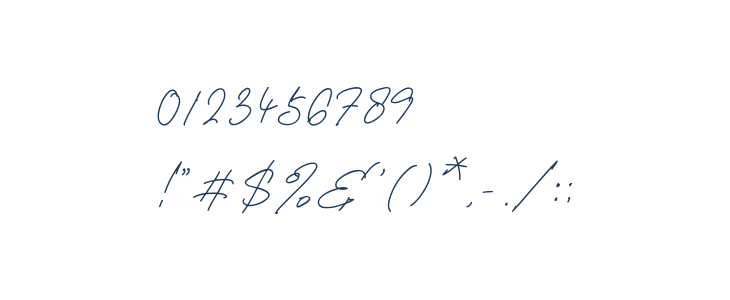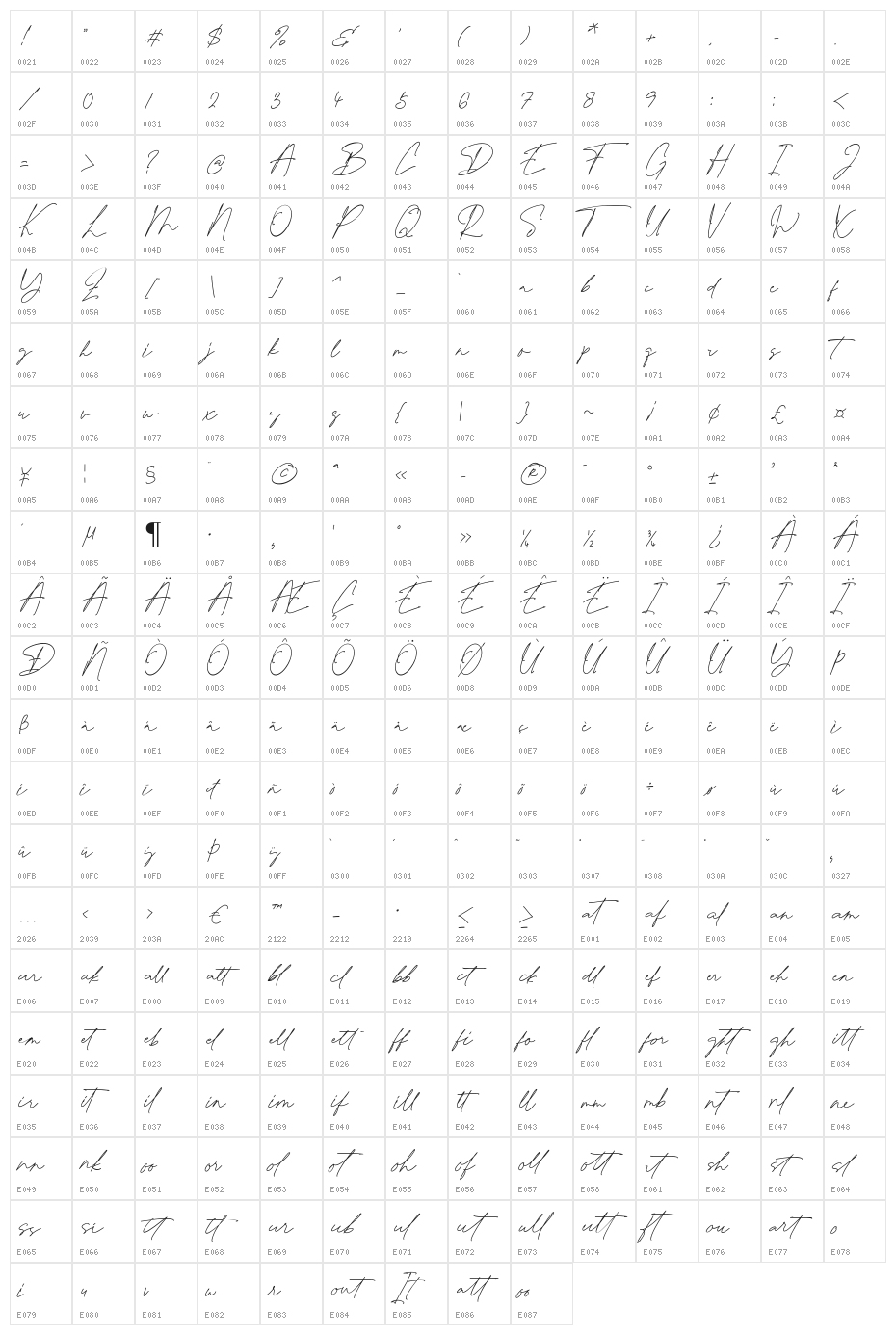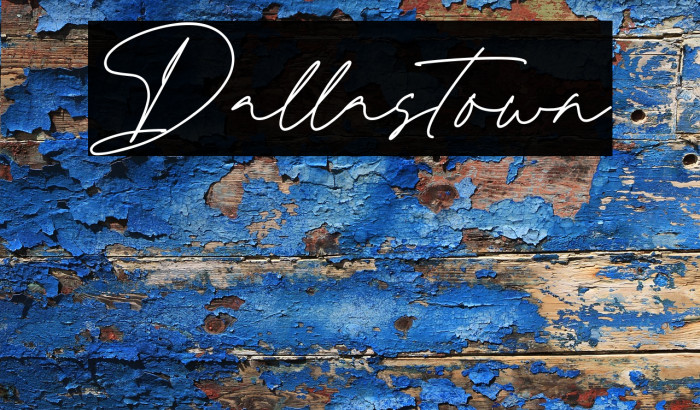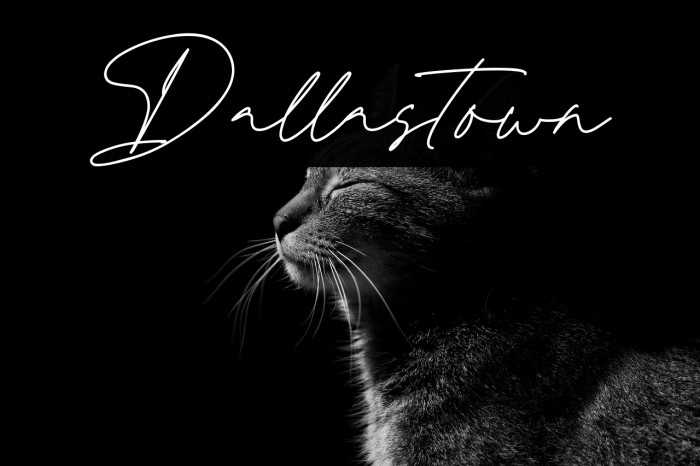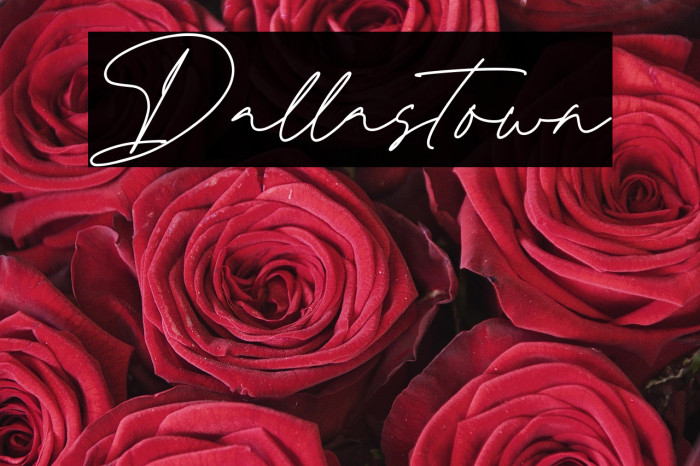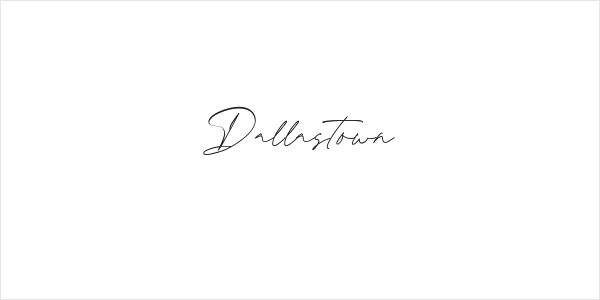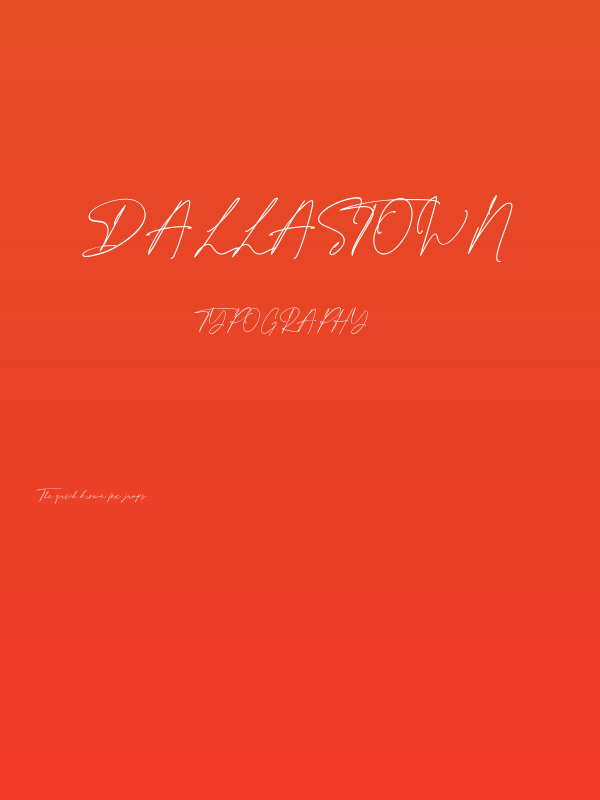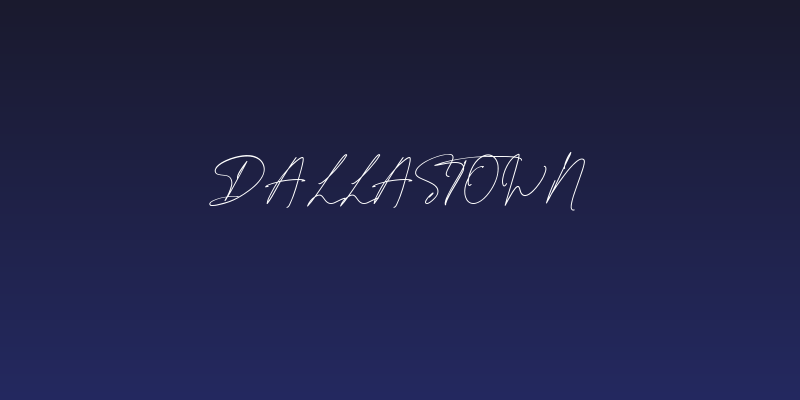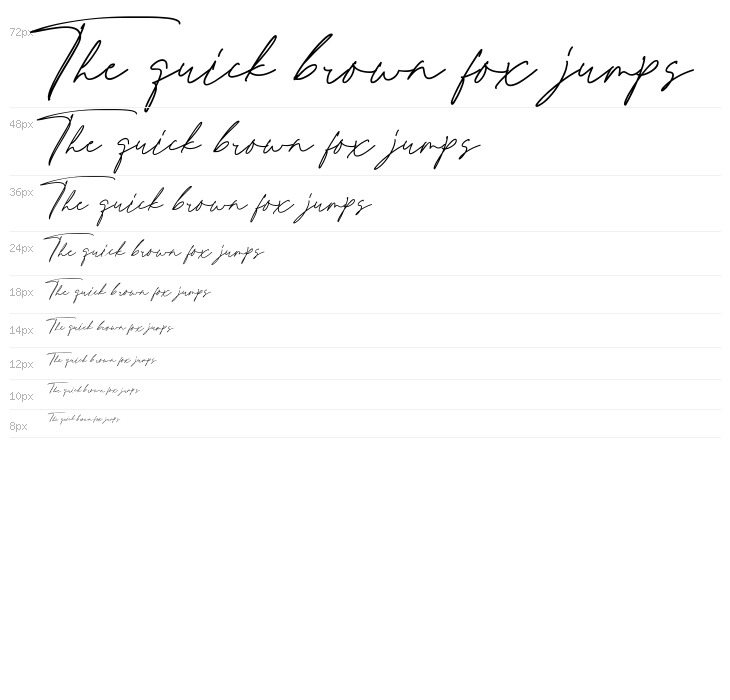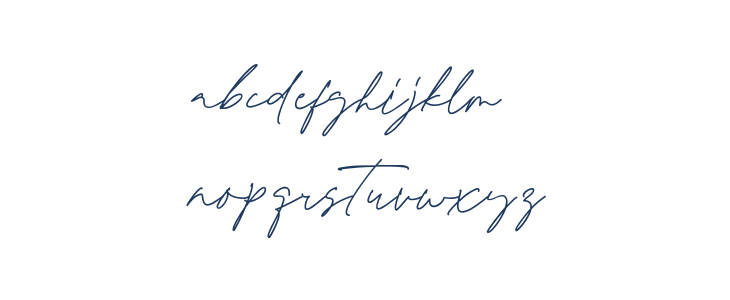
Dallastown Font
Dallastown Description
This font exudes elegance and sophistication with its flowing, cursive style. Each letter is crafted with a smooth, continuous stroke that mimics the fluidity of handwriting. The uppercase letters are bold and prominent, while the lowercase letters maintain a delicate and graceful appearance. Numbers and special characters are seamlessly integrated, maintaining the overall aesthetic. The font's thin lines and slight slant add a touch of modernity, making it versatile for various design needs.
| Use Case | Logos, Invitations, Personal Correspondence |
| Proposed Projects | Ideal for wedding invitations, elegant branding, personal stationery, and artistic projects. |